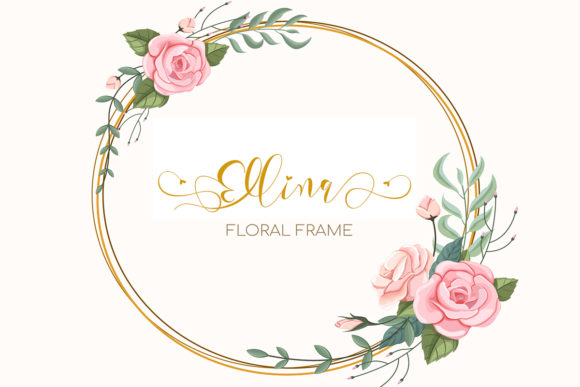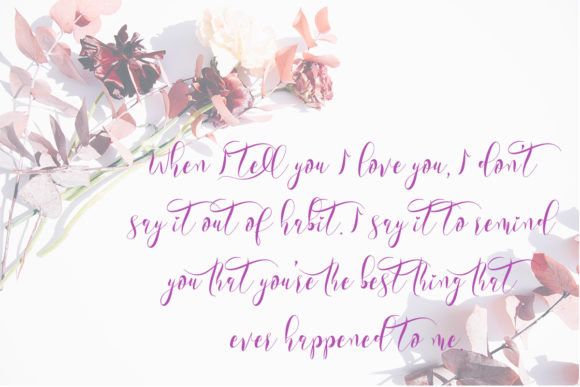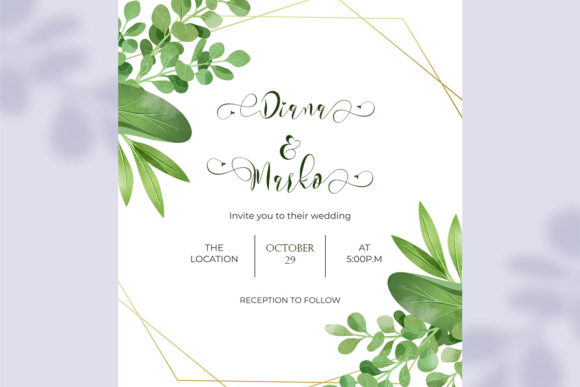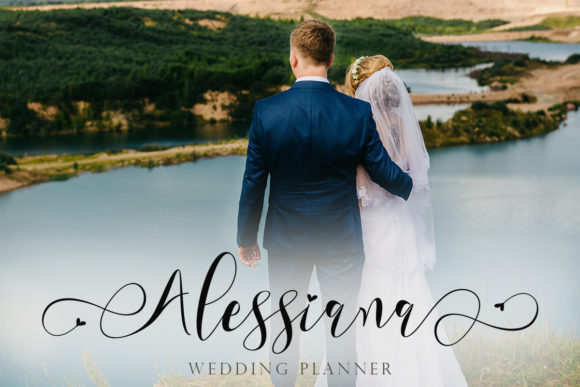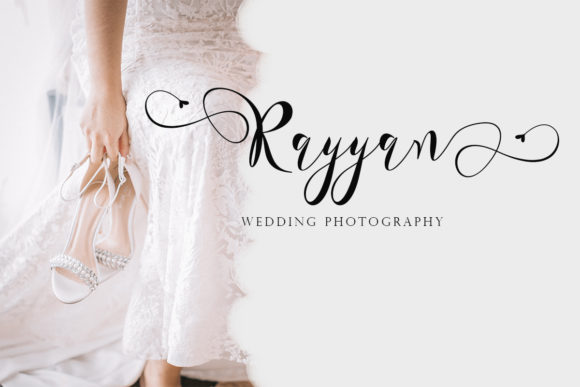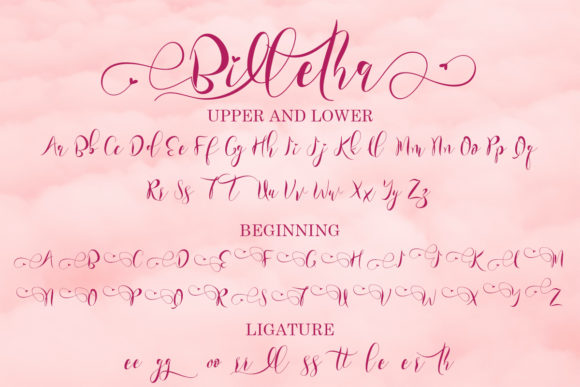
The Billetha Font: A Timeless Handwritten Treasure for Designers
Have you ever been in the middle of a design project, and suddenly, you’re stuck on finding the perfect font? I recall a recent experience where a client asked for a logo that exuded warmth, personality, and a touch of elegance. After scouring through countless font libraries, I stumbled upon the Billetha font, and it was love at first sight! In this article, I’ll share my journey with this lovely and timeless handwritten font, and explore its features, uses, and alternatives.
An Honest Review of Billetha Font
So, what makes Billetha font so special? Let’s dive into the good stuff! 😊
- ✨ Unique and beautiful touch: Every letter in Billetha has a distinct character, making it perfect for creating eye-catching logos, branding, and quotes.
- ✅ Timeless and versatile: This font’s classic look works well across various design projects, from modern to vintage-inspired creations.
- 💫 Elegant and sophisticated: Billetha’s handwritten style adds a touch of warmth and personality to any design.
Now, let’s talk about some minor quirks:
- 🤔 Limited availability of stylistic alternates: While Billetha has some beautiful alternates, it would be great to see more options in future updates.
- ⚠️ Requires careful kerning: As with any handwritten font, some letters may require manual kerning to achieve optimal spacing.
A Practical Guide to Using Billetha Font
The Story Behind Billetha Font
While I couldn’t find any information on the font’s creator, I imagine that Billetha was designed by a talented typographer who wanted to create a beautiful, timeless handwritten font. Perhaps they drew inspiration from classic calligraphy and lettering techniques, combined with a modern twist. Whatever the story, Billetha has become a treasured font among designers and crafters.
In conclusion, Billetha font is a lovely and timeless handwritten treasure that’s perfect for designers, crafters, and creative hobbyists. With its unique and beautiful touch, elegant feel, and versatility, Billetha is sure to become a favorite in your font collection.